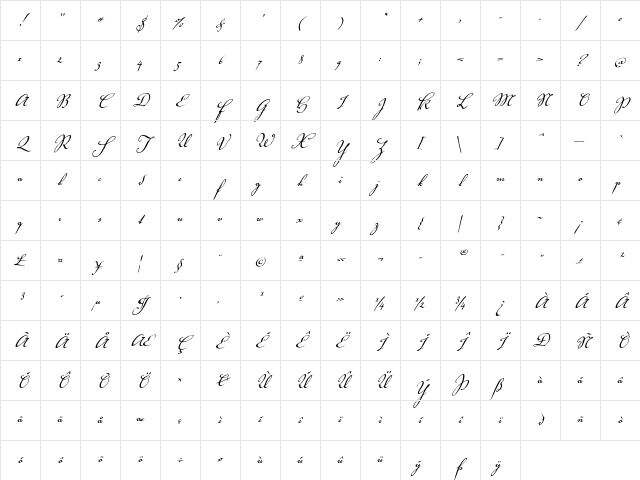
Voluta Script Regular
Design Context for Voluta Script
Voluta Script flows with the natural rhythm of handwritten lettering, making it ideal for designs that call for warmth and personal expression.
Font Pairing: Combine Voluta Script with a simple geometric sans for maximum contrast - the tension between flowing curves and clean structure is a classic typographic pairing.
Pro Tip: Use Voluta Script for short runs of text - names, titles, or taglines. Extended body copy in script faces tires the eye quickly.